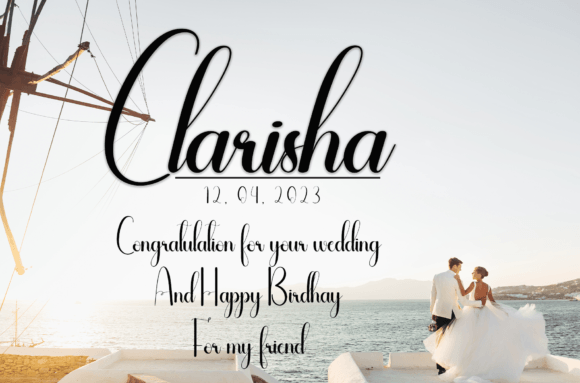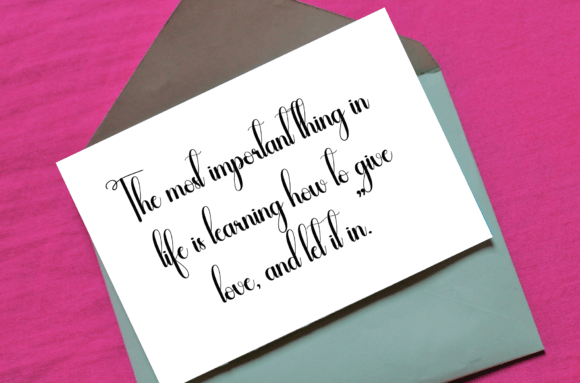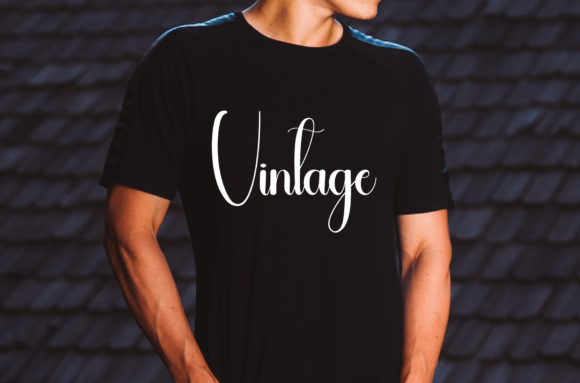
Introduction to Online Shopping Font
Online Shop is a sweet and friendly handwritten font.
Fresh and neat, this font is ideal for writing wedding invitations, cards, or any other design that might need a fun touch .
Key Features of Online Shopping Font